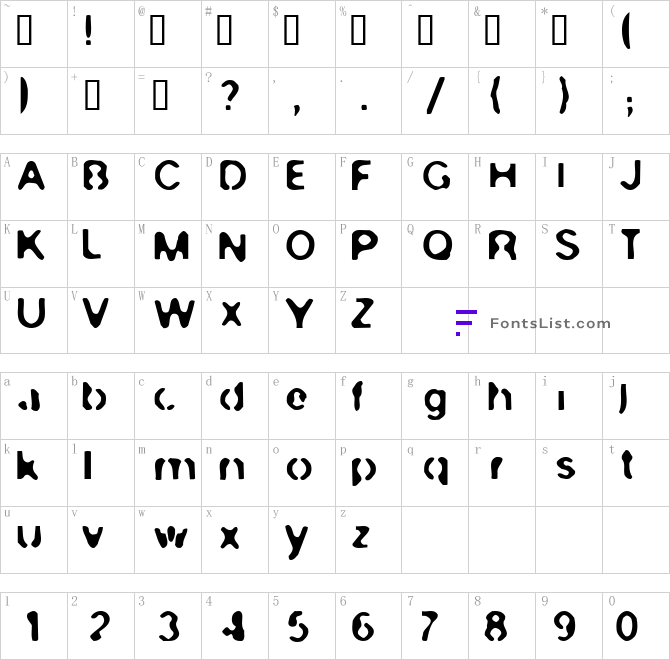
- Font Name:Alphawave
Alphawave.ttf is a very beautiful artistic font, Alphawave.ttf is widely used in the design and printing of various books and pictures,Alphawave.ttf has a strong visual impact,Alphawave.ttf is a commonly used font in newspapers, magazines and books, and is used in posters, e-commerce Poster design, store design, logo design, font design and other fields.Alphawave.